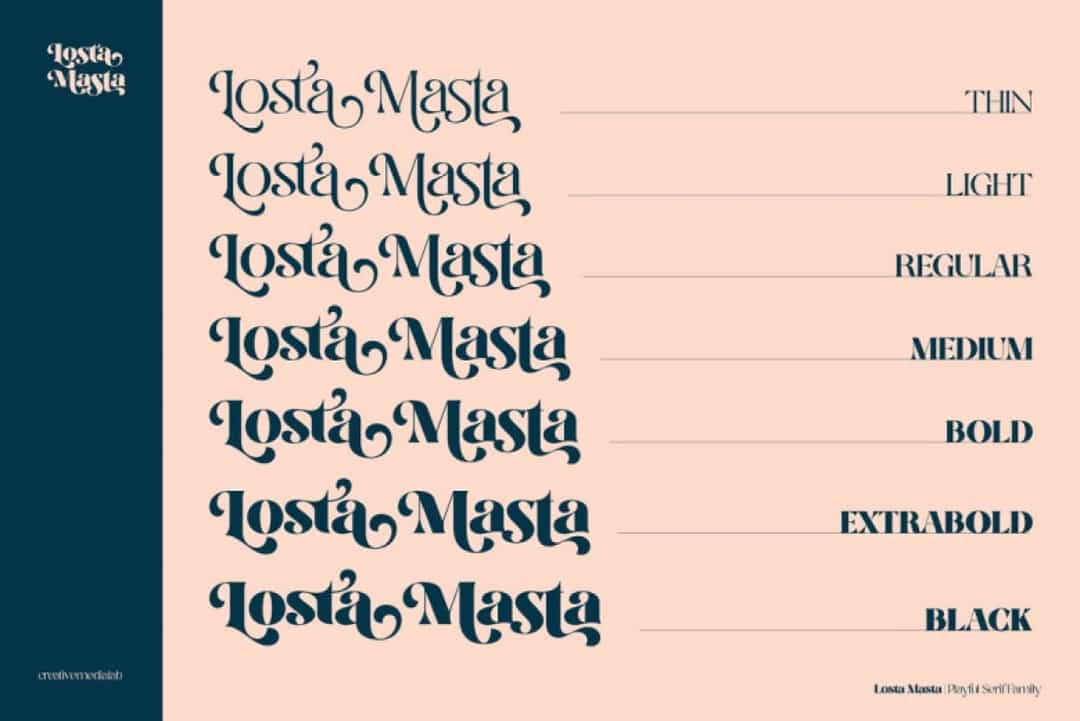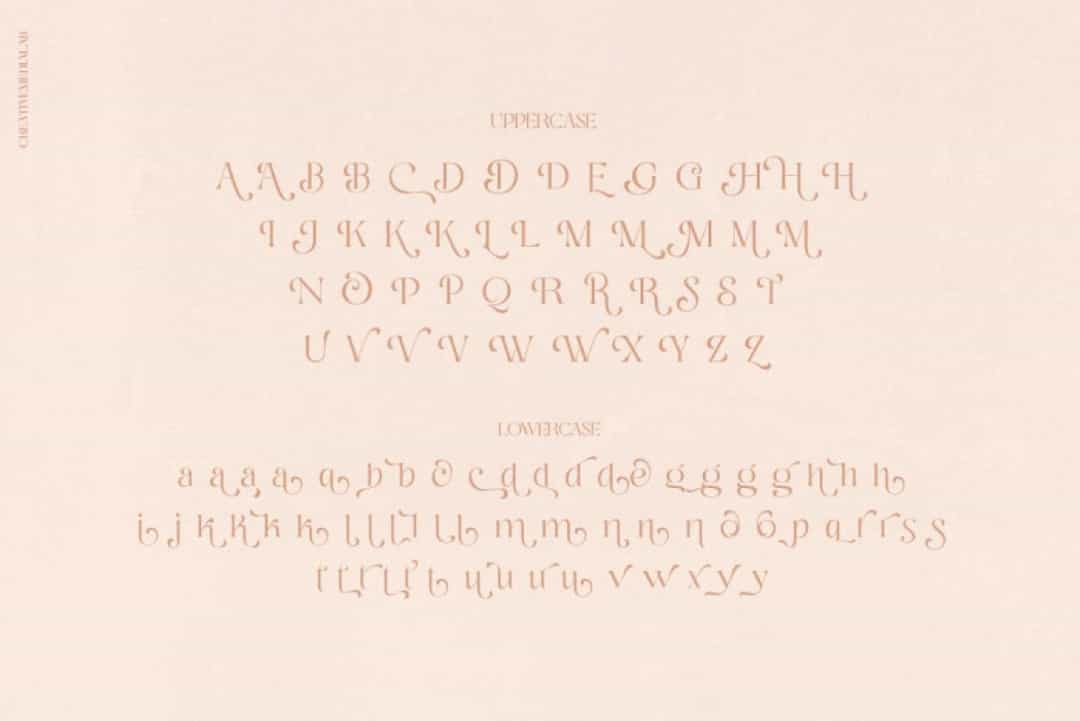
Losta Masta Font is an enjoyable serif font family that stands out as unique, fun and flexible – with 40 ligatures and more than 100 alternatives that let you quickly create curves and stunning designs in seconds! Simply type your words before adding ornamental shapes from Losta Masta ornaments for an impressive result!